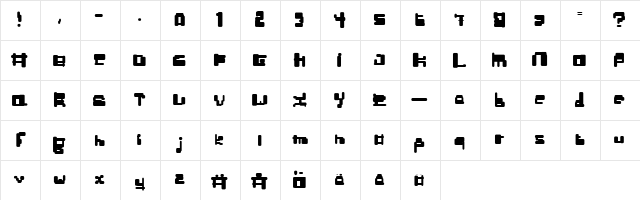
Stjart Regular Free Font
Stjart Regular
Design Context for Stjart
Stjart is a composed and adaptable typeface that performs quietly and consistently across a wide range of design contexts.